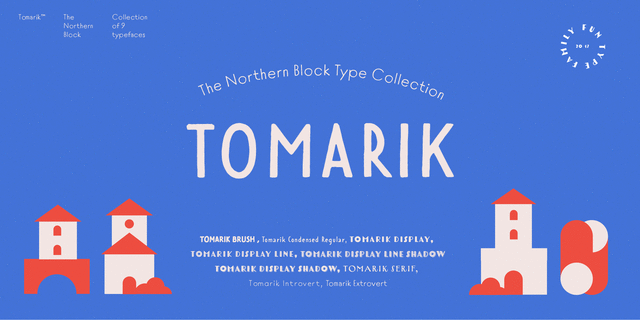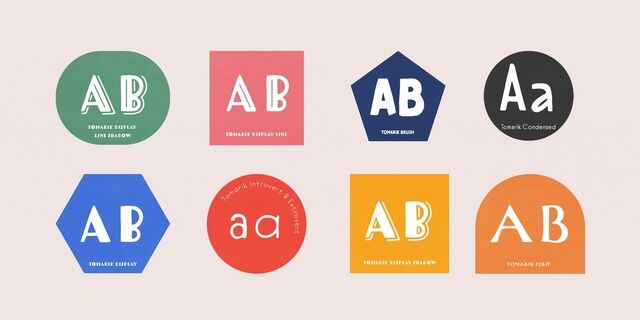
This stylish hand-drawn sans serif is a part of Tomarik vibrant handwritten font collection. The playful addition to any creative depository. Assembled with the ""pick-and-mix"" idea in mind, it offers a great variety of flavor and zest.
Tomarik features nine distinctive weights with Latin and Cyrillic and includes OpenType features such as fractions, inferiors and superiors. Designed by Mariya Pigoulevskaya in 2017. Tomarik™ is a trademark of The Northern Block.